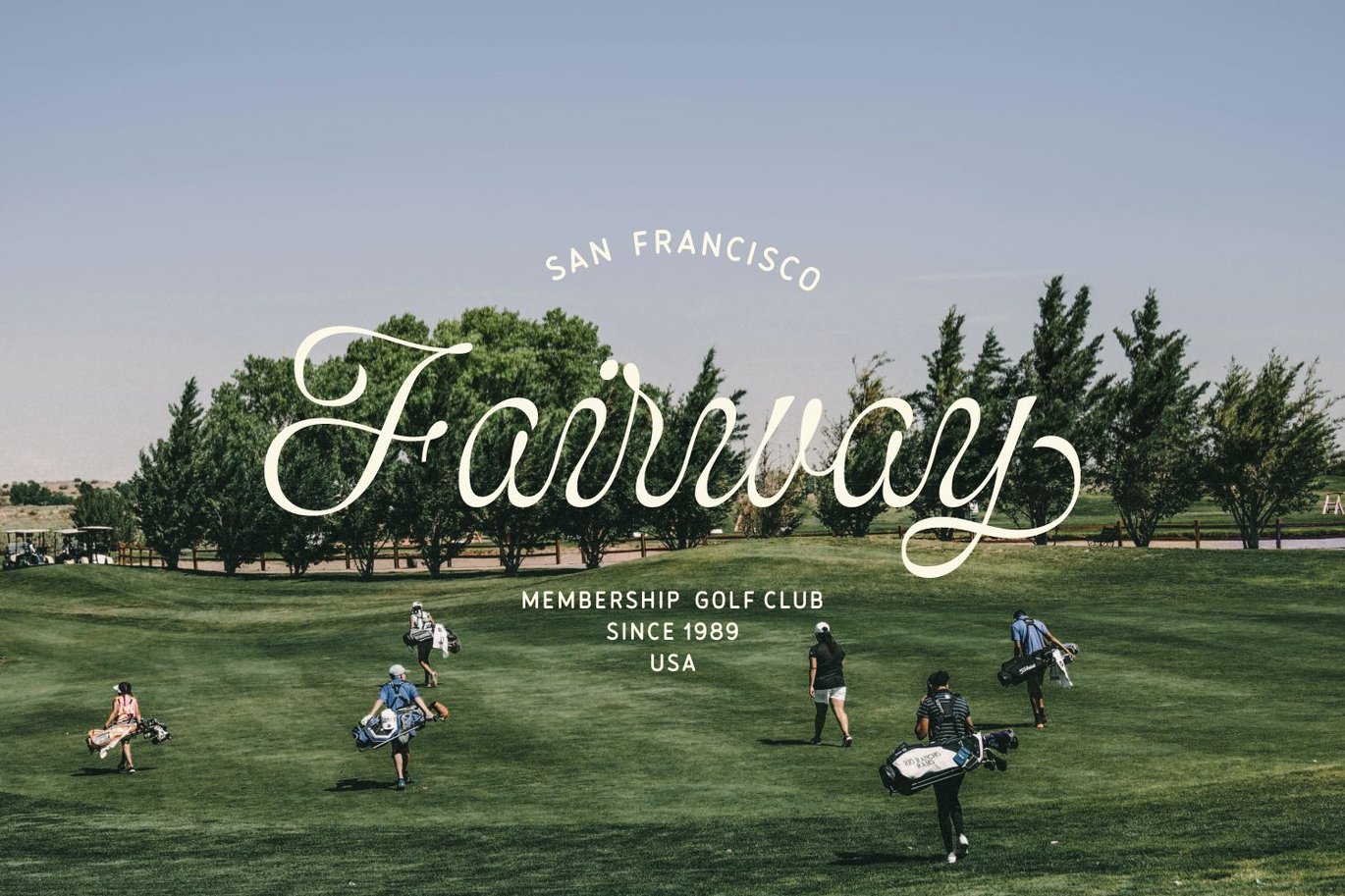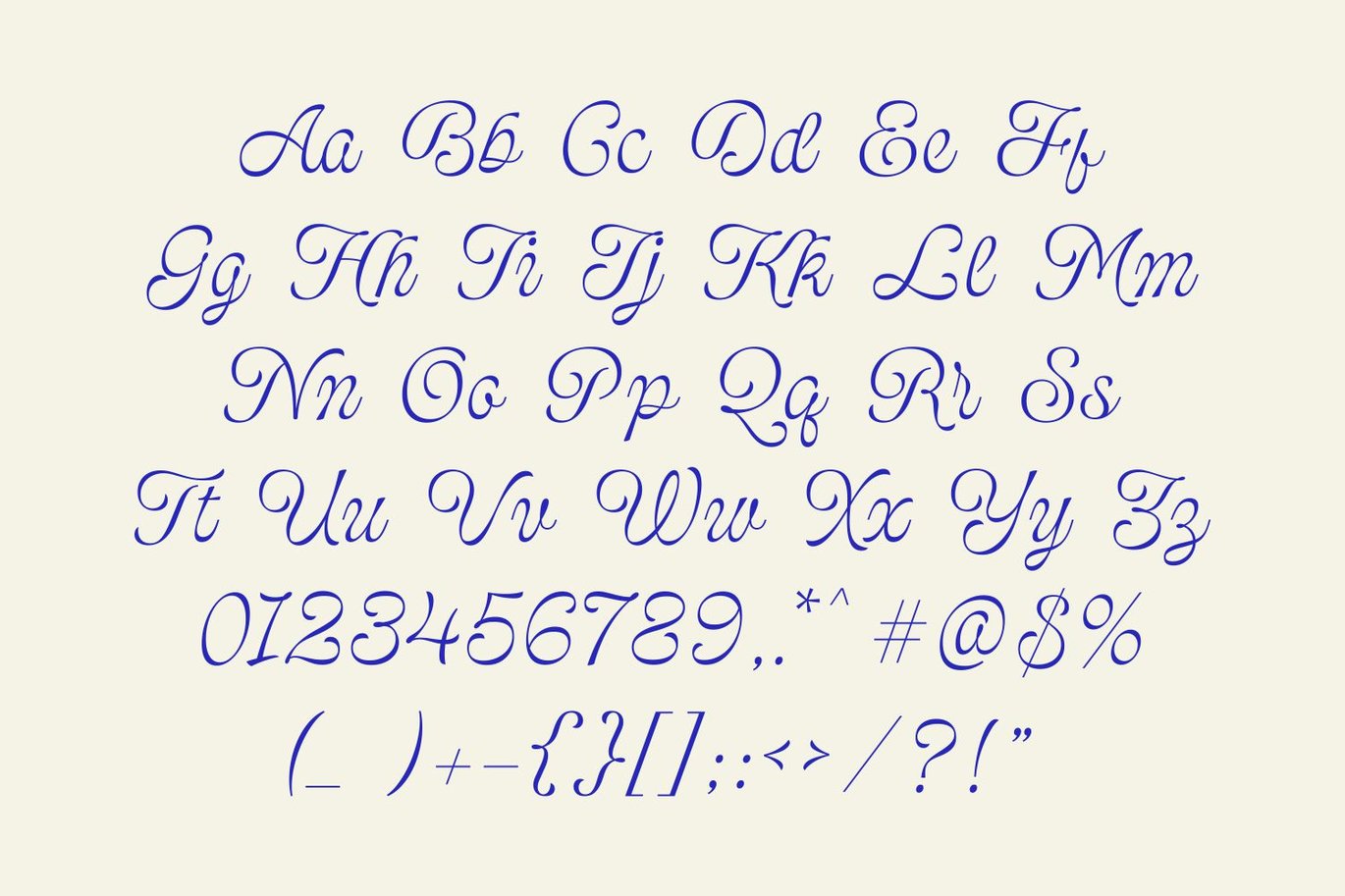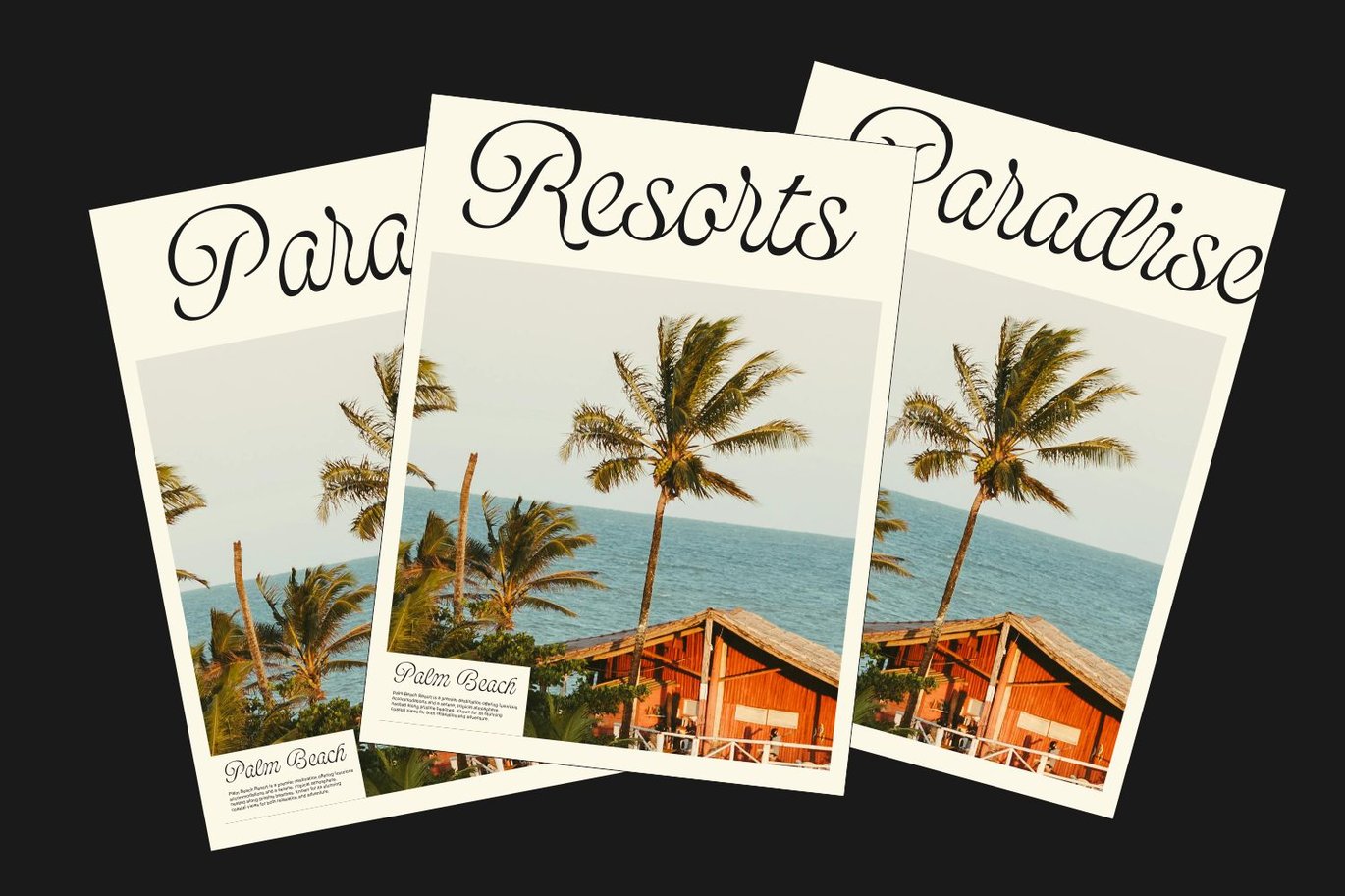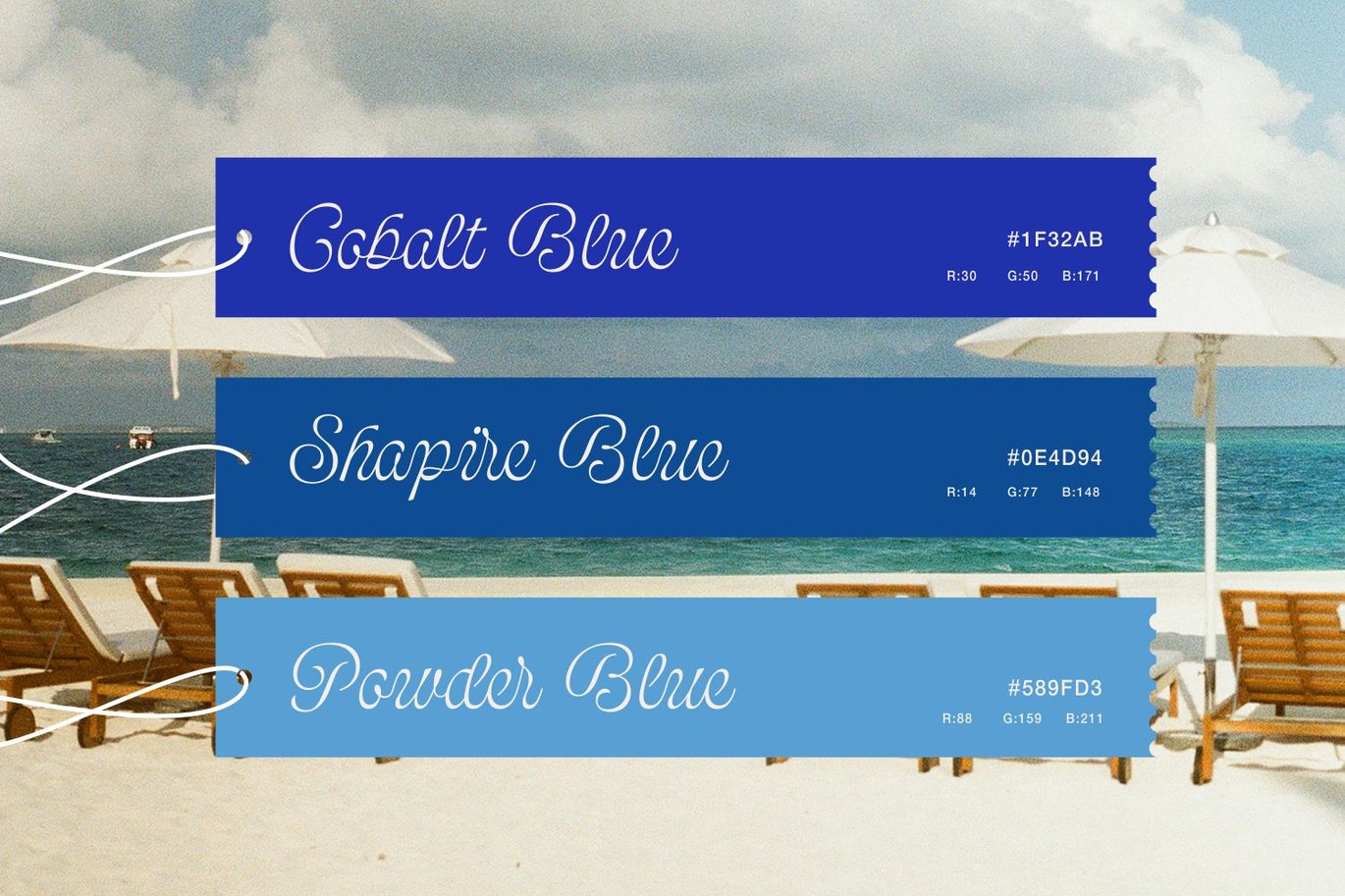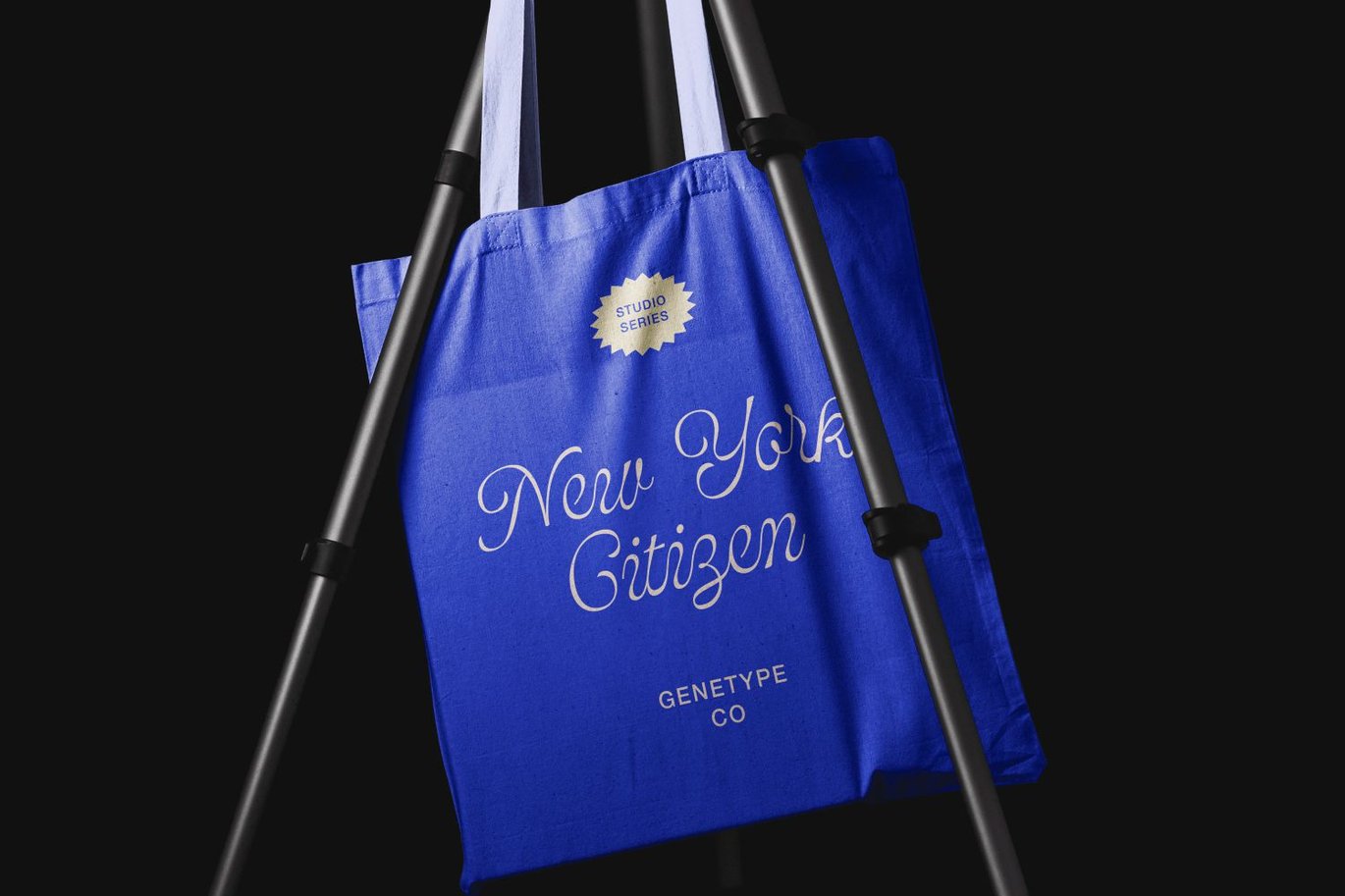
Bolina - Casual Elegant Script Font
Bolina is a smooth and elegant script font that blends casual charm with timeless sophistication. Its flowing, connected letters create a modern handwritten look that feels effortless yet refined — perfect for branding, packaging, wedding invitations, social media posts, and fashion projects.
Designed with gentle curves and balanced contrast, Bolina brings a touch of classic script style with a clean, contemporary twist. It’s ideal for both digital and print use — from elegant logos and stationery to lifestyle branding or boutique signage.
The font includes uppercase, lowercase, numbers, punctuation, and multilingual support, ensuring full versatility for your creative needs. Use Bolina to add beauty and confidence to any design, from minimalist layouts to expressive headlines.